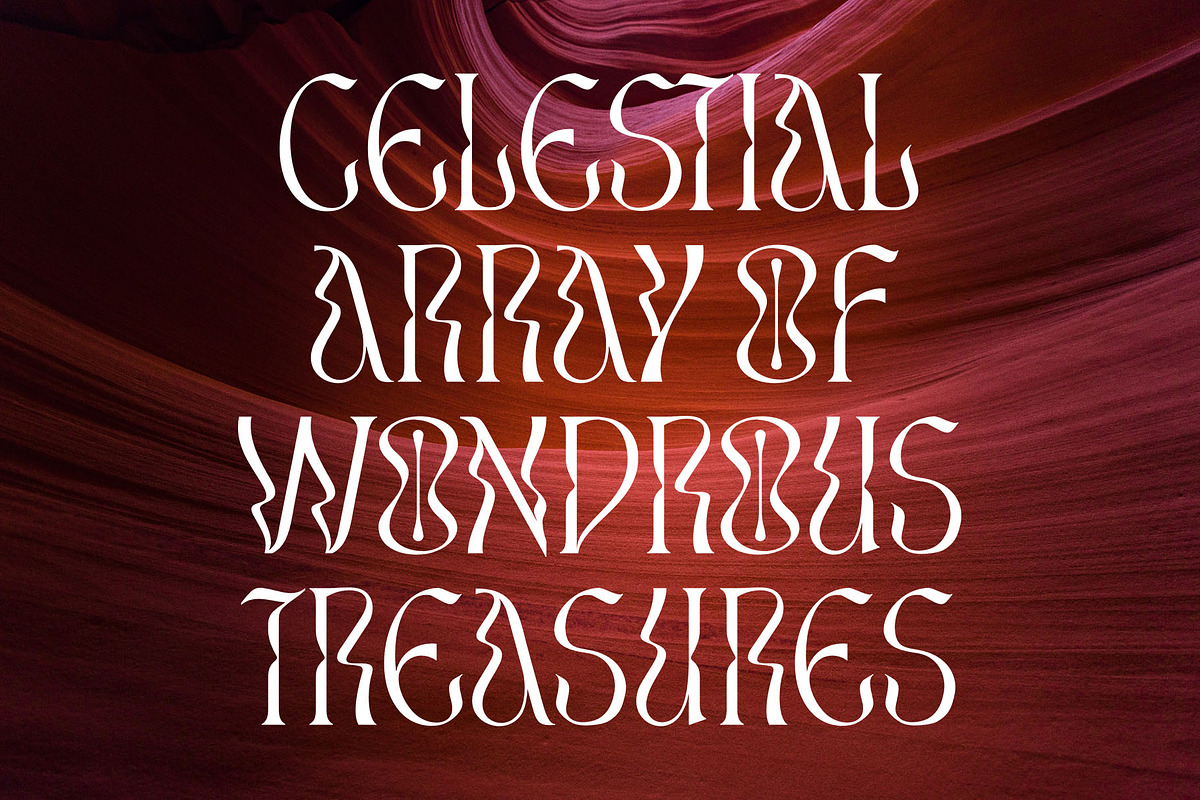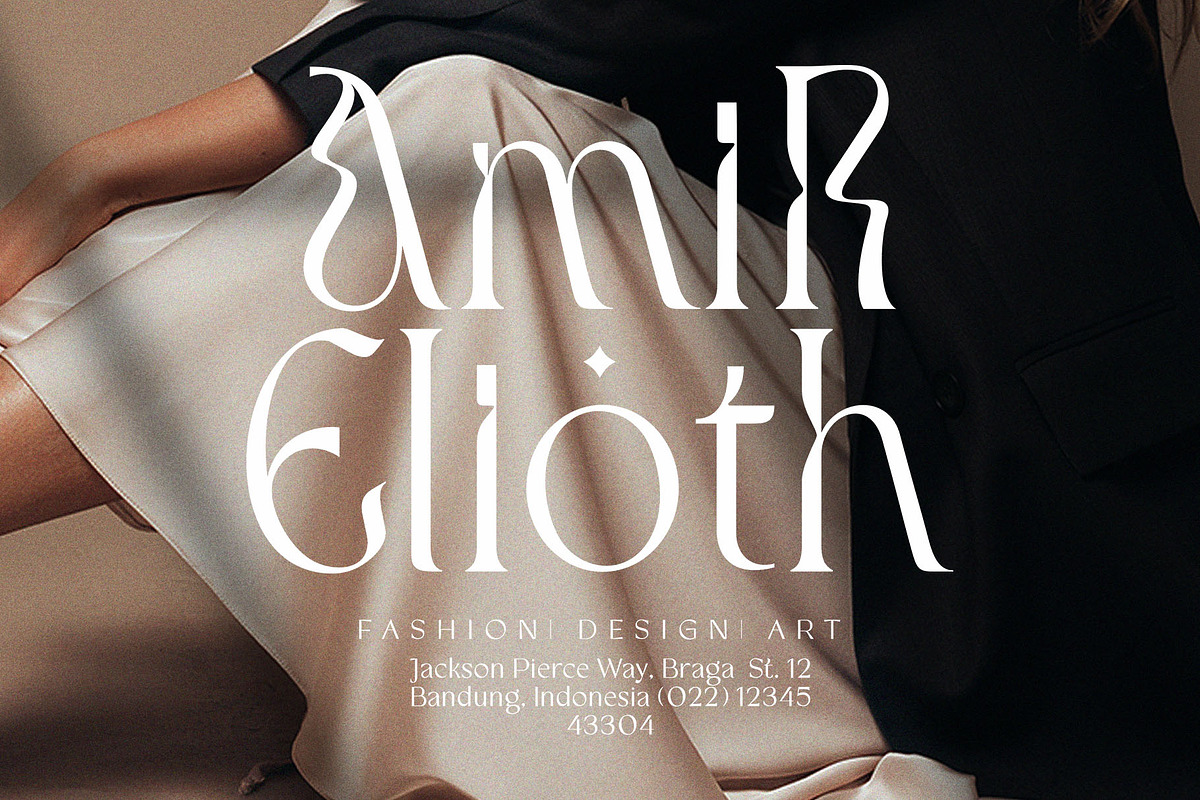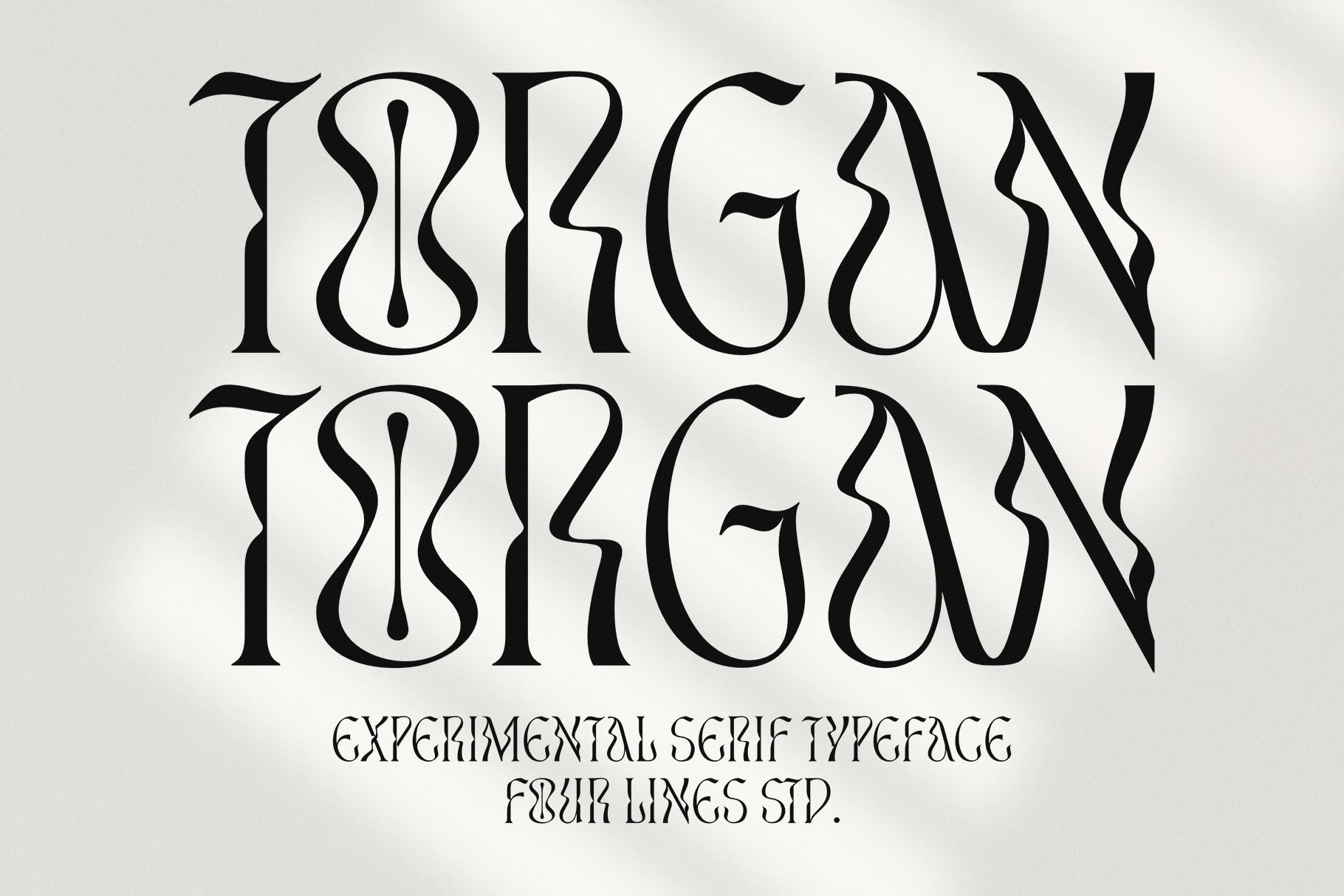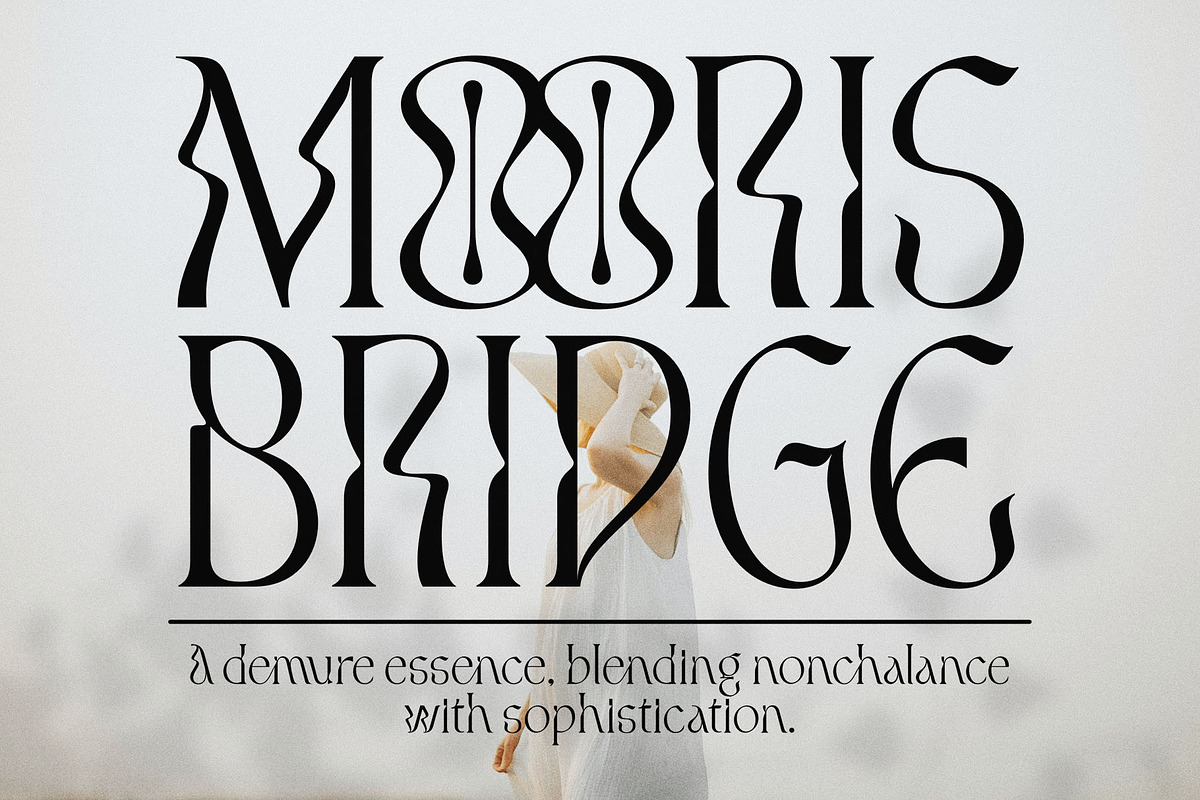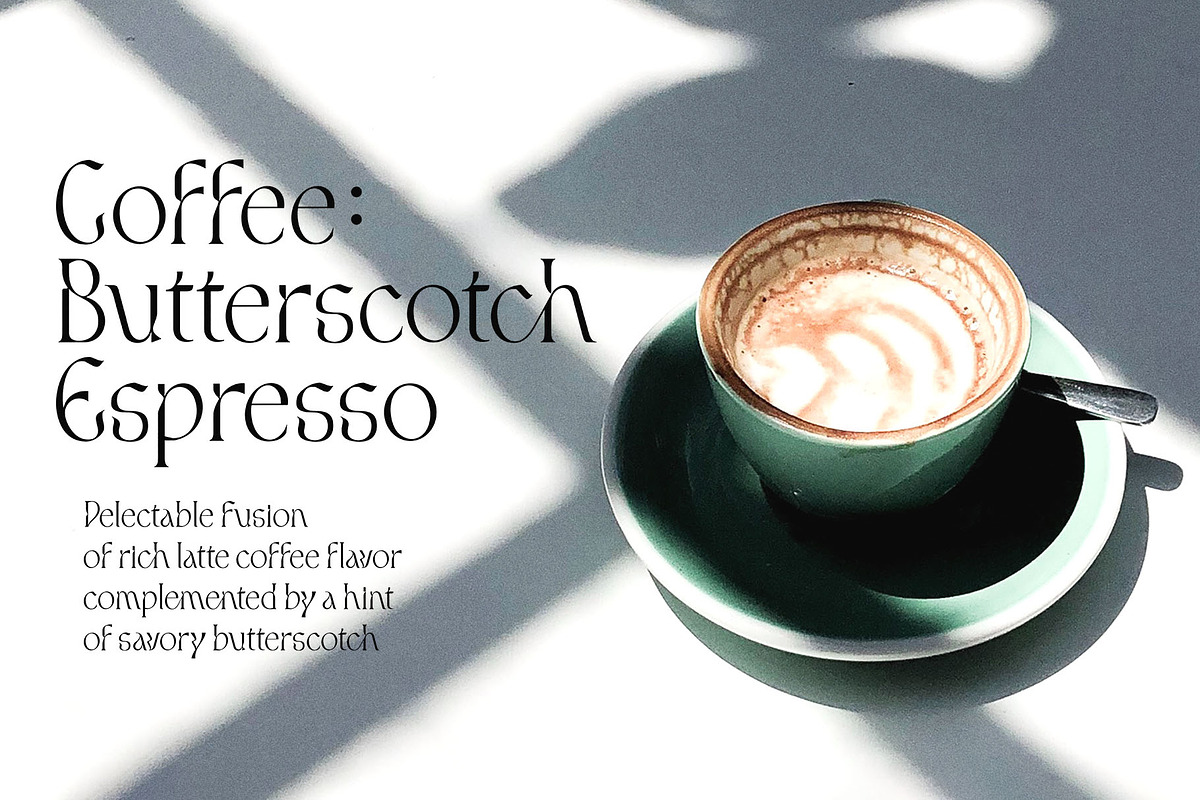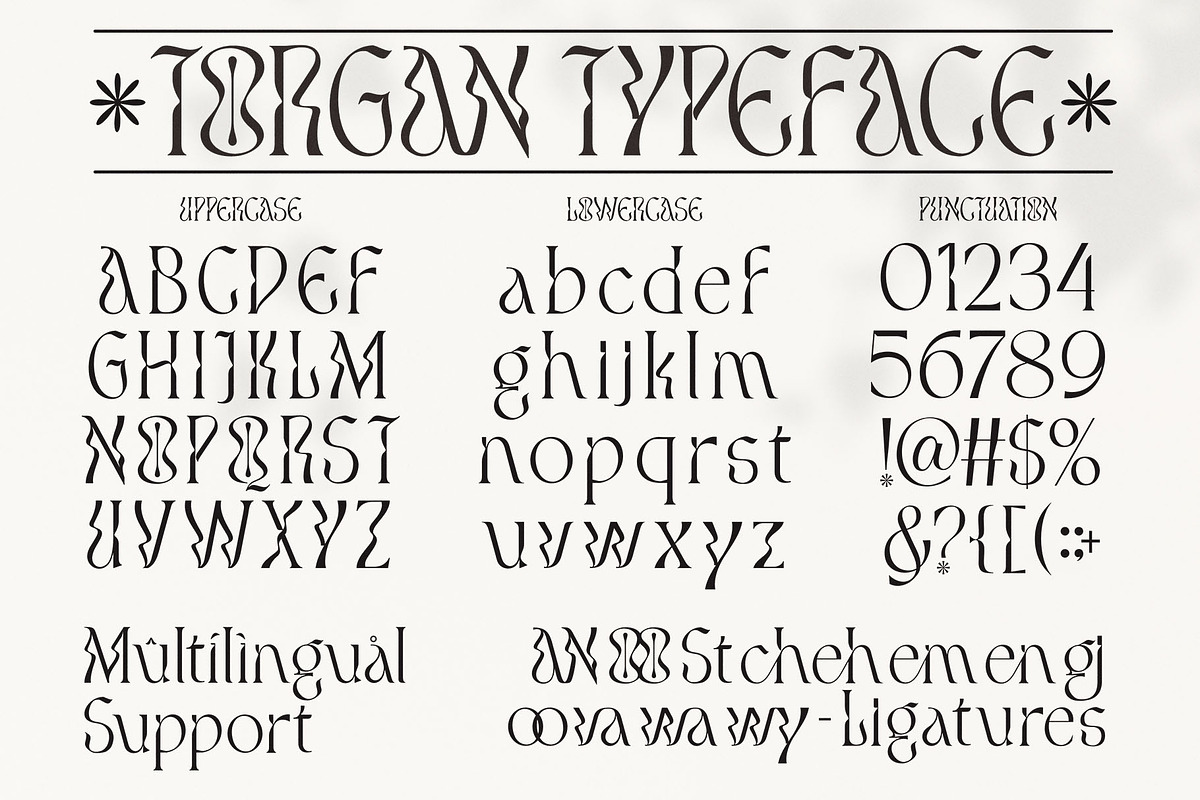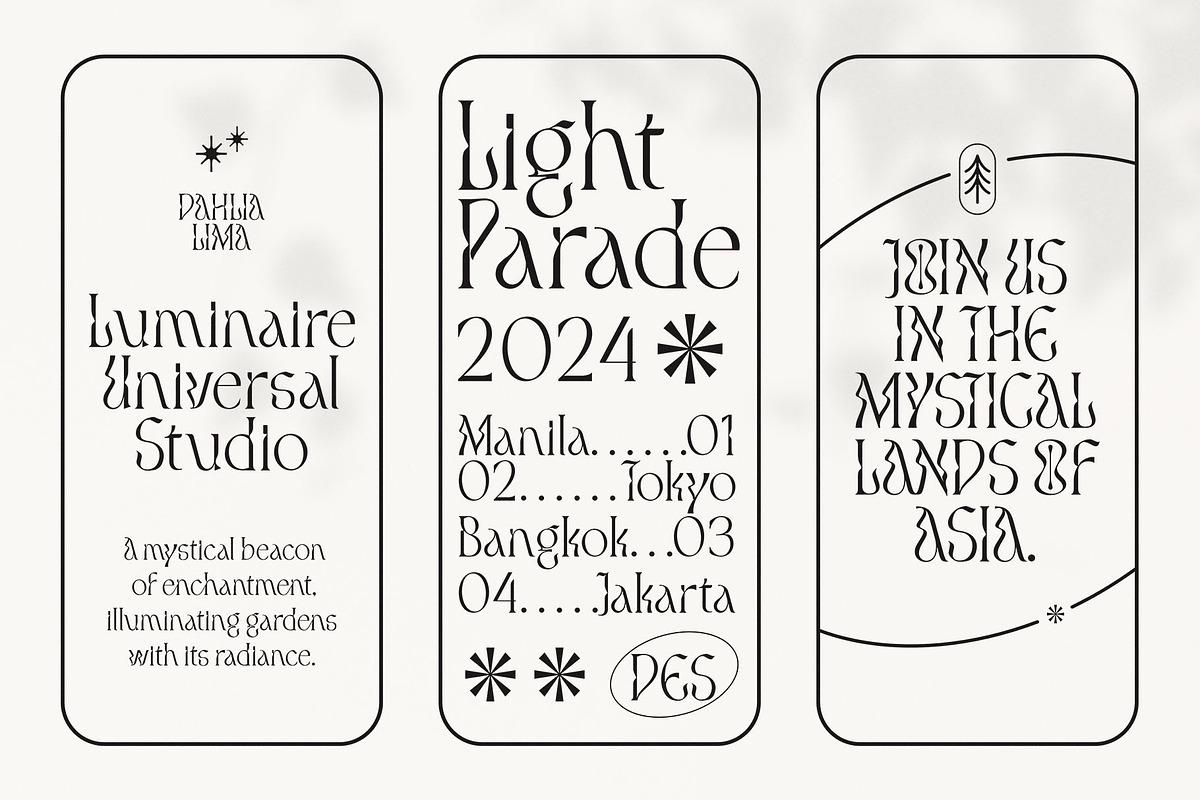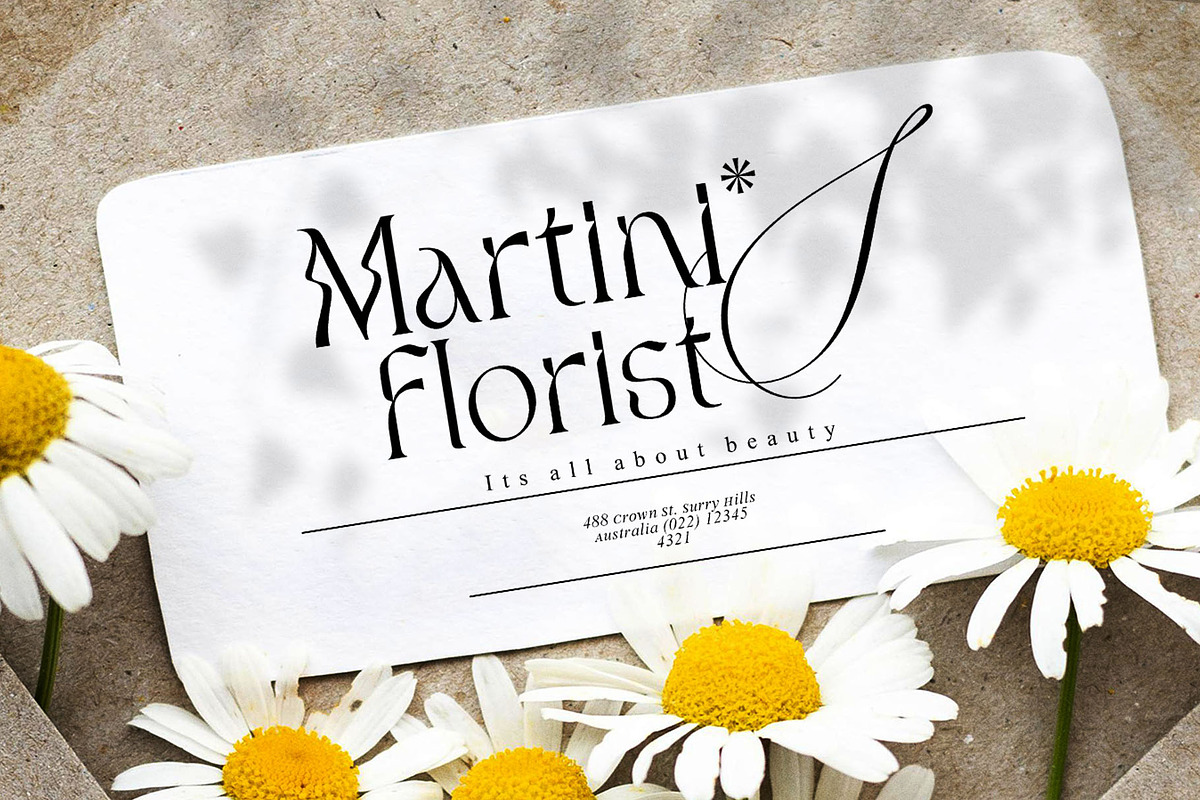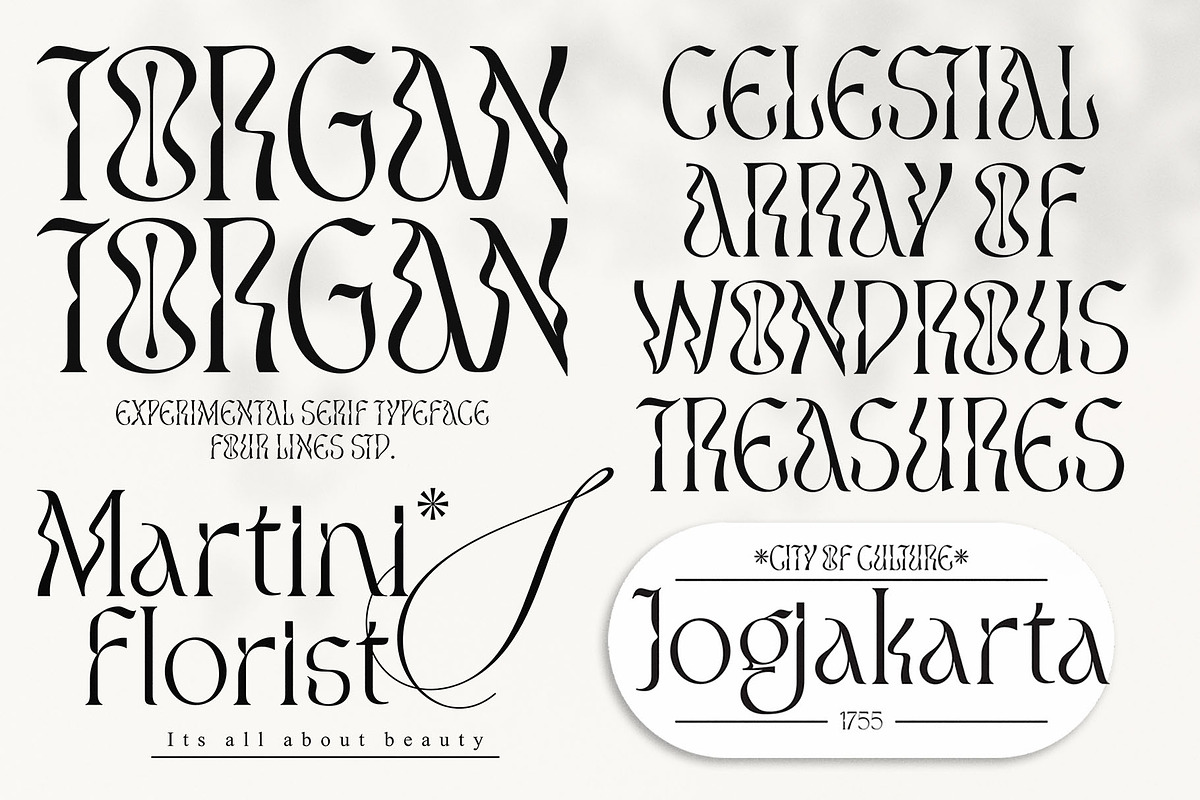
50% Torgan – Experimental Serif Font
The Torgan Typeface stands out for its experimental design and flowing curves, offering a fresh interpretation of traditional serif fonts. This unique approach challenges typical typographic conventions, expanding the boundaries of aesthetic expression. Its adaptable nature makes it an ideal choice for various applications, such as posters, social media, web design, invitations, crafts, and more.